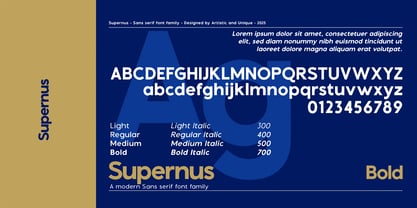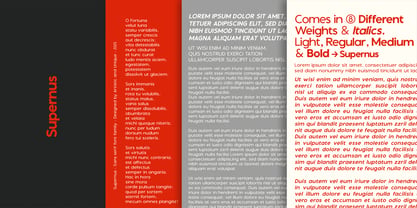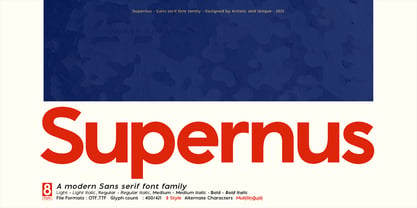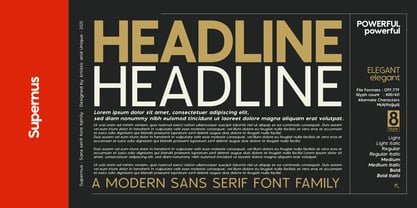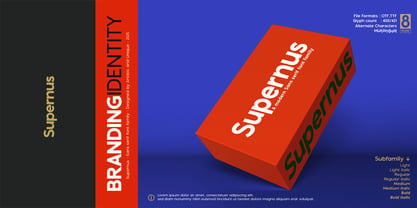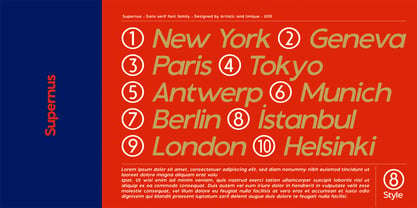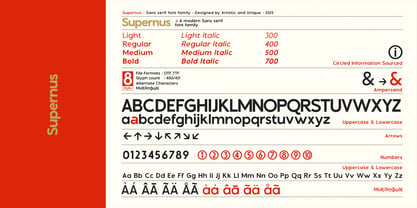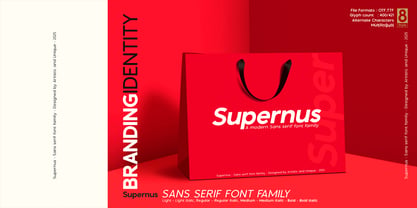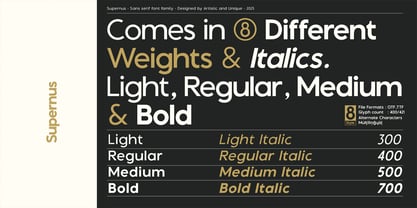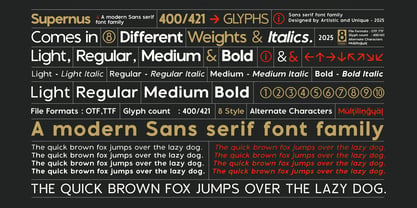
Supernus
by Artisticandunique
The Supernus Font Family was designed by Osman Taner Kucukgenc and published by Artisticandunique. Supernus contains 8 styles and family package options. More about this family
Supernus - Sans serif Font Family - 8 Styles - Multilingual Support. This sans serif font aims to attract attention in an innovative solution for designers who aim to enhance their brand toolkit by differentiating its modern appeal and versatility with some subtle nuances and ensuring seamless integration into both digital and print projects with its structural anatomy. This family features eight distinct styles that deliver resolute readability and elegance across a variety of creative endeavors. Multilingual support further enhances its universal appeal; lighter tones offer a sophisticated look, while bolder tones attract attention in headlines. Features: - Multilingual support, - 8 different styles, - Style alternatives, - Rich glyph options (421), - Perfect for branding and editorial design, - Suitable for web and logo design, - Alternative characters and additional symbols. Whether you're designing books, magazines, or newspapers, or developing editorial headlines, websites, logos, and brands, the Supernus font family offers a harmonious blend of modern and classic aesthetics. Enhance your designs with this versatile font that respects tradition while meeting contemporary needs. Have a good time.
Designers: Osman Taner Kucukgenc
Foundry: Artisticandunique